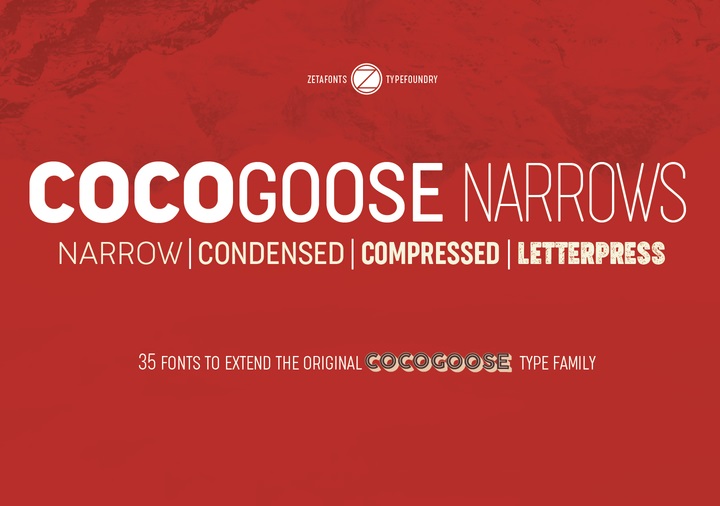
Cocogoose Narrows Font
Introducing Cocogoose Narrows. It is designed and shared by Zetafonts. Cocogoose is a geometric sans serif typeface designed with straight, monolinear lines and circular or square shapes. Cocogoose Narrows includes 3 different widths: condensed, compressed and narrow, each in multiple weights with italics, small capitals, alternates, old style numerals, full cyrillic and greek character sets, and sporting the beloved letterpress version. Perfect for logos and headings with a strong feel, but also very readable as a text font.
Cocogoose Narrows Font Family